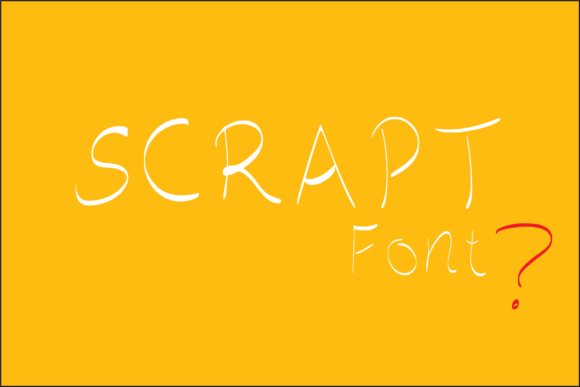
HomeScript FontsScrapt Font Script Fonts Scrapt Font FacebookTwitterPinterestWhatsApp 1 of 2 Scrapt Font Poster 2... About Scrapt Font Scrapt is a fun and quirky handwritten font. Add it to your crafty ideas and enjoy the results! DOWNLOAD NOW People also explored Dahlia Font Creaty Family Font Barbie Font Ontime Font Gray Booba Font Coolture Font Twilight Font Dinosaur Font Gabriel Font 144 0 TagsScrapt Font Previous articleBibble FontNext articleChemicalling Font LEAVE A REPLY Cancel reply Comment: Please enter your comment! Name:* Please enter your name here Email:* You have entered an incorrect email address! Please enter your email address here Website: Save my name, email, and website in this browser for the next time I comment. Personal Use Free Abberancy Personal Use Free Read more about this font 08 Underground Personal Use Free Read more about this font Gonestones Personal Use Free Read more about this font Vincent Familiante Personal Use Free Read more about this font BLOG Best Fonts for YouTube Videos: Make Your Thumbnails Stand Out Best Fonts for YouTube Videos: Make Your Thumbnails Stand Out Choosing the right font can make a massive difference in how your YouTube videos perform.... Where to Buy American Fonts Online in 2024 Best Fonts for T-Shirt Design – Top 2025 Picks Exploring Font Trends